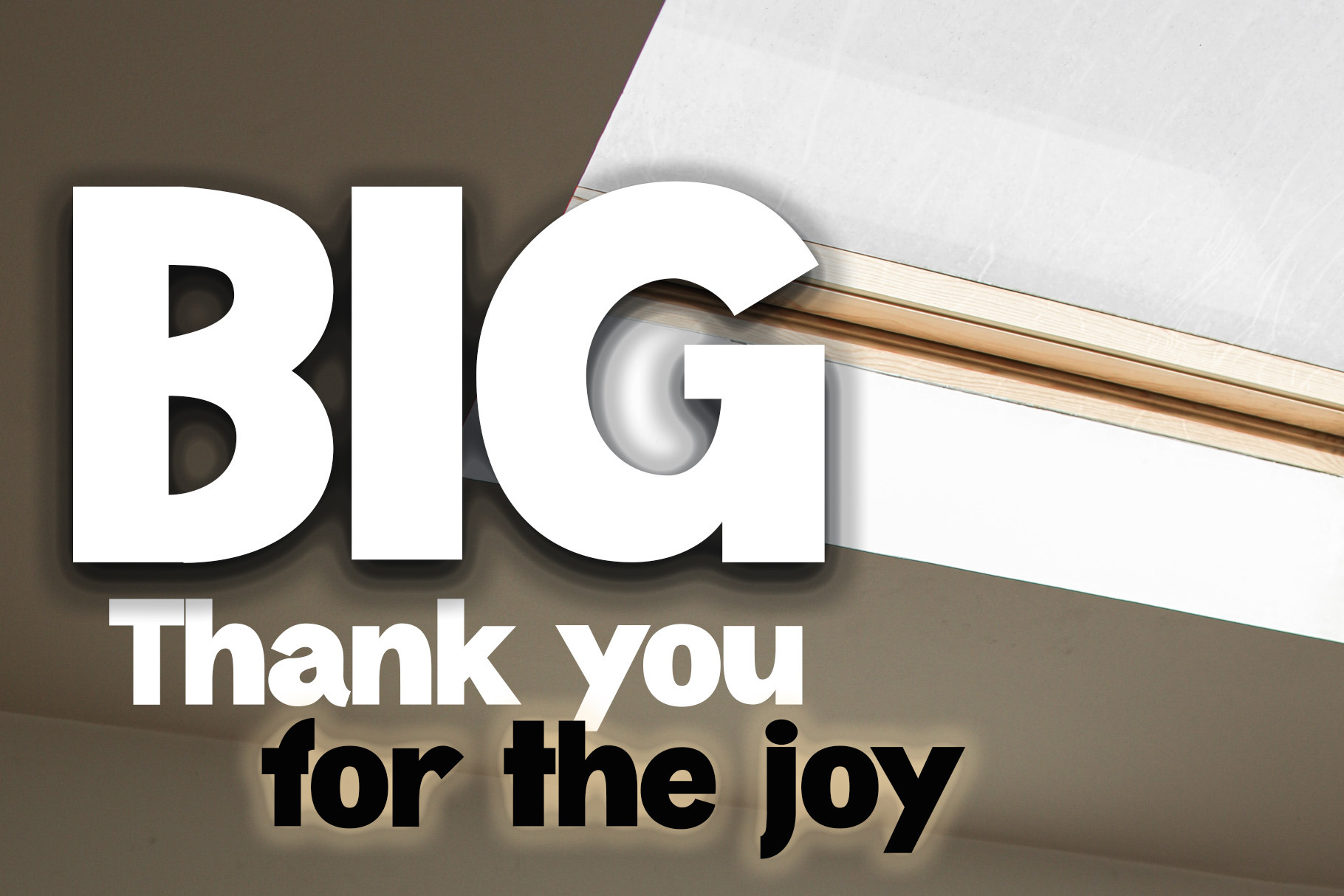
Omegle Otten - Modern Font
Add a touch of modern elegance to your designs with Omegle Otten, a sleek sans-serif font. This font is easy to use and perfect for a variety of design projects.
Use Omegle Otten to create modern logos, stylish headlines, and eye-catching titles. This font will bring a touch of sophistication to any design.
- Modern sans-serif font
- Includes upper case letters and numerals
- Make a bold statement with the modern and versatile Omegle Otten font.